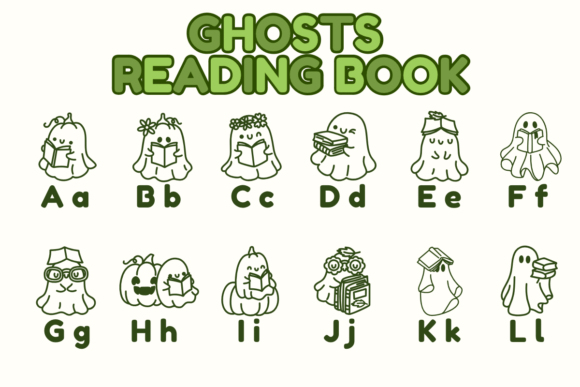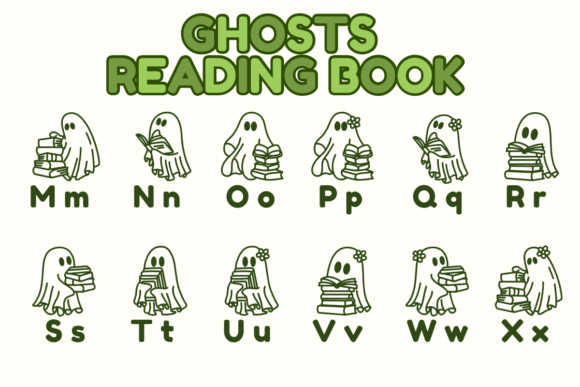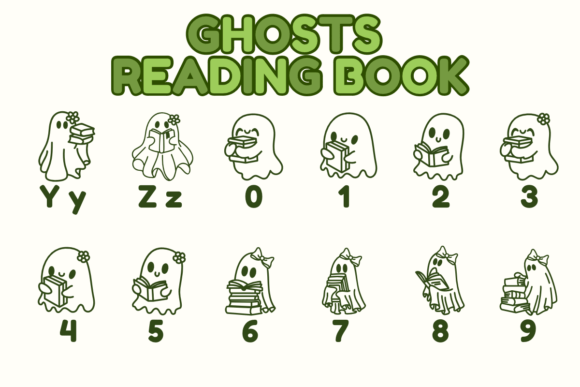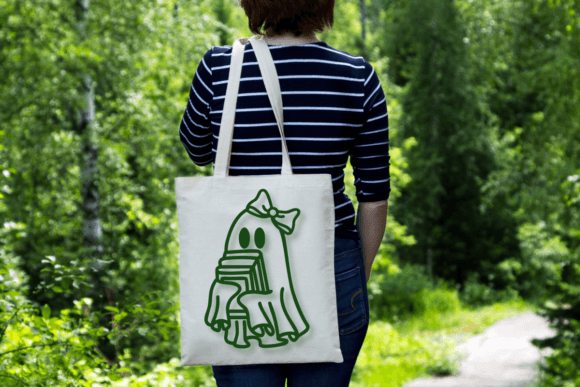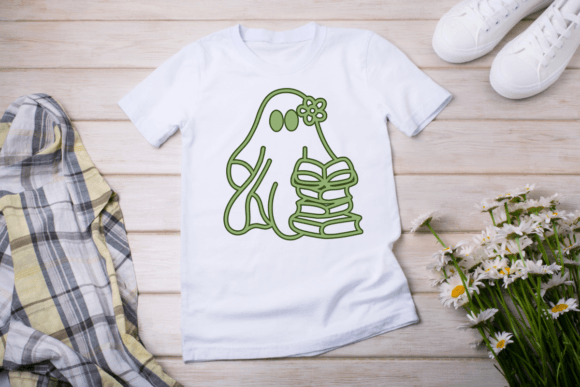
The Spooky Charm of Ghosts Reading Book Font
As a designer, I’ve had my fair share of late nights scrolling through font libraries, searching for that perfect typeface to bring a project to life. One evening, while working on a whimsical wedding invitation, I stumbled upon the Ghosts Reading Book font. Its quirky, sketch-like style instantly captured my attention, and I knew I had found the perfect fit.
A First Impression: What I Love About Ghosts Reading Book
Here’s what immediately drew me to this dingbats font:
- ✨ Unique sketch style that adds a touch of whimsy to any project
- ✅ Extensive character set, perfect for a variety of creative applications
- 🎨 Highly versatile, suitable for digital and print designs
- 💕 Adorable ghostly illustrations that bring a playful vibe
An Honest Review: The Not-So-Perfect Aspects
No font is perfect, and Ghosts Reading Book has a few quirks:
- 🤔 Limited availability of stylistic alternates, which might restrict design variations
- ⚠️ Some characters might appear a bit inconsistent in size or style, requiring manual adjustments
The Story Behind Ghosts Reading Book
The Ghosts Reading Book font was inspired by the playful, mystical world of ghostly encounters. Its designer aimed to capture the whimsical essence of ghosts and books, blending the two to create a unique and captivating typeface.
| What type of projects is Ghosts Reading Book best suited for? | Ghosts Reading Book is perfect for creative projects like wedding invitations, DIY crafts, decorations, logos, and more. |